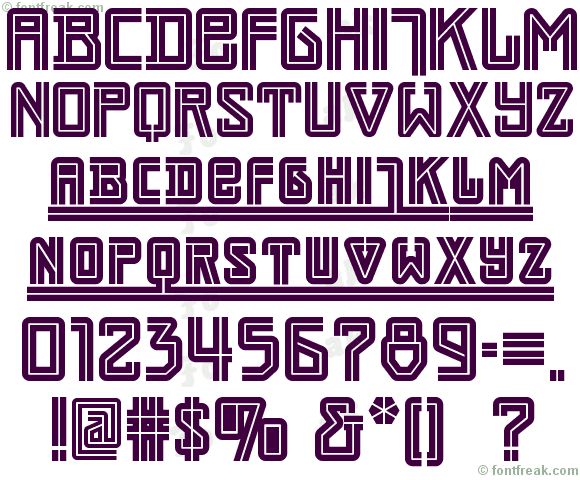
Darmstadt Arts NF
Darmstadt Arts NF, designed by Nick Curtis, is a striking display font that captures attention with its bold and geometric aesthetic. This font belongs to the decorative category, characterized by a unique blend of modern and retro elements. Its distinctive letterforms feature consistent stroke weights, with a notable contrast that creates a visually engaging appearance. The spacing is thoughtfully balanced, ensuring readability while maintaining a stylish flair. Decorative elements, such as the angular cuts and stylized serifs, contribute to its artistic vibe, making it suitable for a variety of creative projects.
The versatility of Darmstadt Arts NF makes it an excellent choice for numerous applications. It shines in wedding invitations where a touch of elegance is desired, as well as in movie posters that require a bold statement to capture the essence of the film. Restaurant menus can benefit from this font's unique character, making dishes stand out and enticing diners. Additionally, it serves well in branding efforts for small businesses looking to create a memorable impression. Content creators will also find this font appealing for social media graphics and promotional materials, as its visual flair draws attention in a crowded digital landscape.
Targeted towards graphic designers, small business owners, and content creators, Darmstadt Arts NF offers an artistic yet professional touch. Its free availability allows for creative freedom without budget constraints, making it an accessible choice for those looking to enhance their projects. The Darmstadt Arts NF font free download is an opportunity not to be missed for anyone seeking to elevate their design work. This font stands out for its combination of artistic style and functionality, ensuring that it can be used across various contexts while leaving a lasting impression.